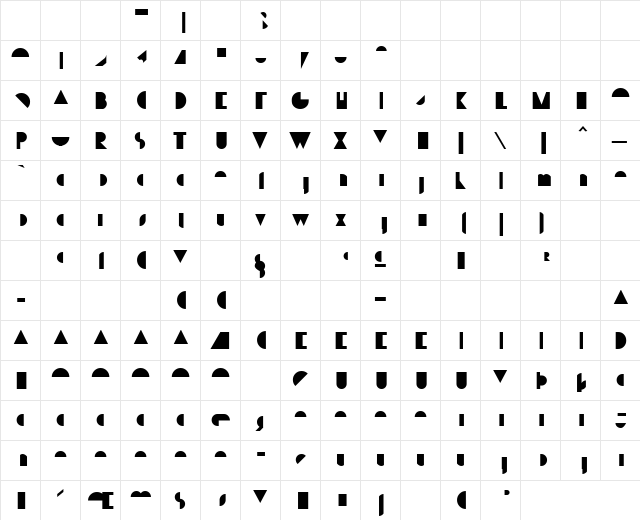
Complete P22 Bifur D Regular glyph index. Displaying only characters natively supported by P22 Bifur D Regular font.
P22 Bifur D is a composed and adaptable typeface that performs quietly and consistently across a wide range of design contexts.